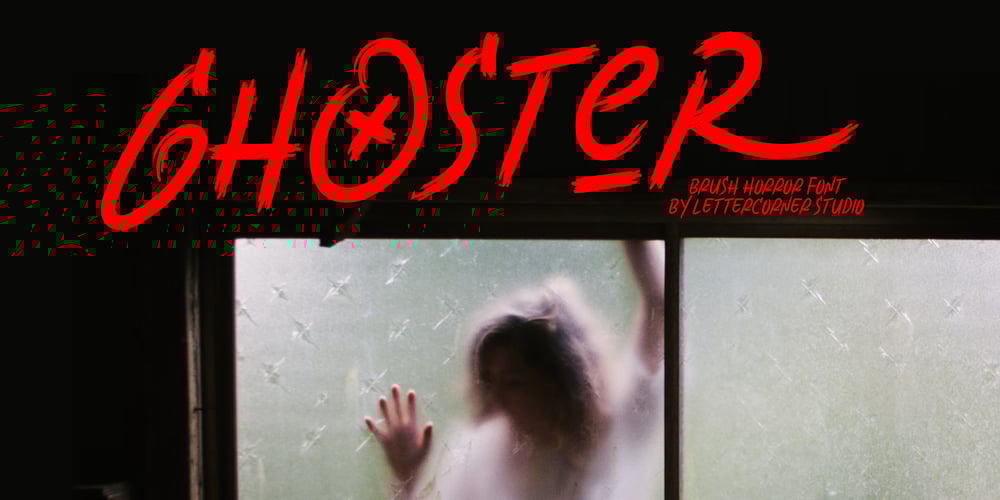
Ghoster Font Family was designed by Muhammad Afif Ersya and published by Mevstory Studio. Ghoster contains 1 styles and family package options. Ghoster Modern Brush Font is an urban street brush font that was created using real paint brush strokes. This is the perfect font to have realistic brush type. Use lower and uppercase for alternative characters. Also, this font includes 6 vector paint splatter textures that were created with real paint and scanned high res.This font is perfect for any branding project such as logos, t-shirt printing, creative products, and more. extraordinary in a variety of contexts.